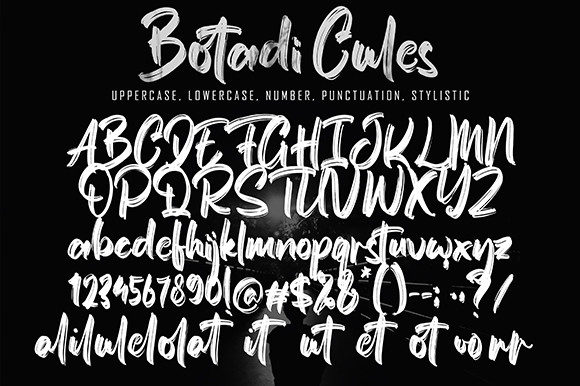
Botadi Cules Font
About Botadi Cules Font
“Botadi Cules” presents itself as a brushed and chic handwritten font, bringing a touch of sophistication and style to a variety of creative projects. Tailored to enhance visual appeal, this font proves to be ideal for a range of applications, including quotes, logos, blog headers, posters, branding, letters, invitations, and stationery.
The allure of “Botadi Cules” lies in its brushed and chic strokes, adding a dynamic and elegant quality to each character. The font’s handwritten charm exudes a sense of modernity and chic aesthetics, making it a valuable asset for designers seeking to infuse their projects with a visually pleasing and contemporary flair.
In quotes, “Botadi Cules” transforms words into statements of modern elegance. The brushed strokes add a touch of flair and sophistication, enhancing the overall impact of the quoted text. Whether applied to social media posts, wall art, or print materials, this font contributes to a captivating and stylish presentation.
Logo design benefits from the distinctive and chic nature of “Botadi Cules.” The brushed and chic handwritten style adds a personalized and contemporary touch, making the logo stand out and leaving a memorable impression. This font is particularly fitting for brands that aim to convey a sense of modernity, sophistication, and a touch of glamour.
Blog headers acquire a trendy and chic appearance with the use of “Botadi Cules.” The brushed strokes create a dynamic and eye-catching title, setting a modern tone for the content. This font contributes to a visually cohesive and stylish blog design.
Posters, whether for events, promotions, or artistic purposes, gain a fashionable and expressive quality with the addition of “Botadi Cules.” The chic handwritten font adds character and modernity, ensuring that the message is delivered with both style and impact.
In branding projects, “Botadi Cules” serves as a chic and versatile choice. Its brushed and chic handwriting injects a sense of contemporary flair, making it suitable for a wide range of industries, from fashion and beauty to lifestyle and design.
Letters and invitations are elevated with the modern and chic touch of “Botadi Cules.” The font’s expressive strokes contribute to a stylish and sophisticated presentation, creating an inviting atmosphere for recipients. Whether used for personal letters or special event invitations, this font enhances the overall experience.
Stationery design benefits from the chic and contemporary element brought by “Botadi Cules.” From notecards to envelopes, the brushed and chic handwriting elevates the visual appeal, creating a cohesive and fashionable stationery set.
In essence, “Botadi Cules” transcends the boundaries of a typical font; it becomes a design companion that effortlessly enhances the visual storytelling of diverse projects. With its brushed and chic handwritten charm, this font stands ready to make a lasting impression, offering a modern and stylish typography option for your creative endeavors, whether in quotes, logos, blog headers, posters, branding, letters, invitations, or stationery.